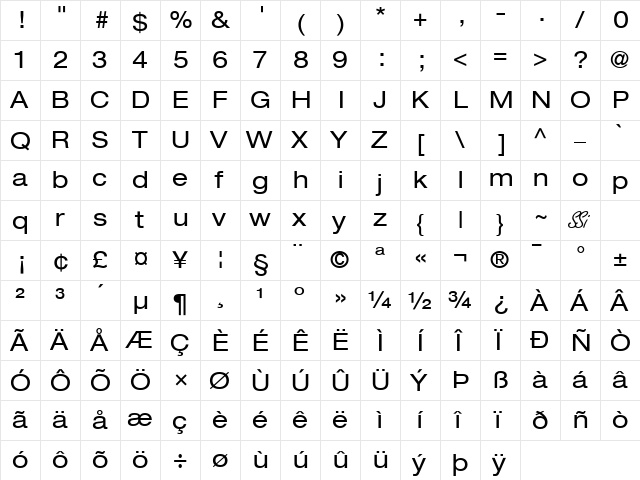
Context Reprise Expanded SSi Expanded
Design Context for Context Reprise Expanded SSi Typeface
Context Reprise Expanded SSi is a composed and adaptable typeface that performs quietly and consistently across a wide range of design contexts.